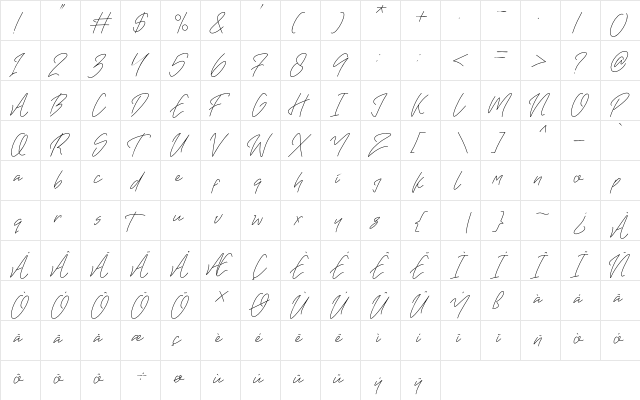
Darklight Regular
| Designer | Rayvaldo Rizki Pratama Augusta |
Design Context for Darklight Typeface
Darklight is a composed and adaptable typeface that performs quietly and consistently across a wide range of design contexts. The delicate stroke weight brings airiness and refinement to layouts.